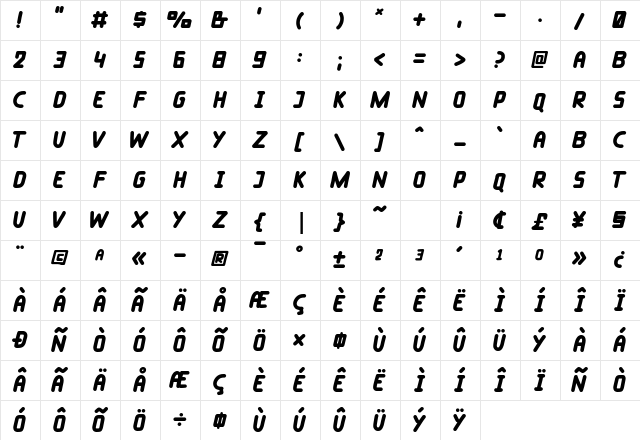
Taylorsit Regular
| Foundry | Kong Font |
| Designer | Kong Font |
Design Context for Taylorsit Typeface
Taylorsit takes a measured approach to typography — its balanced proportions and neutral character make it a reliable workhorse for both digital and print work.